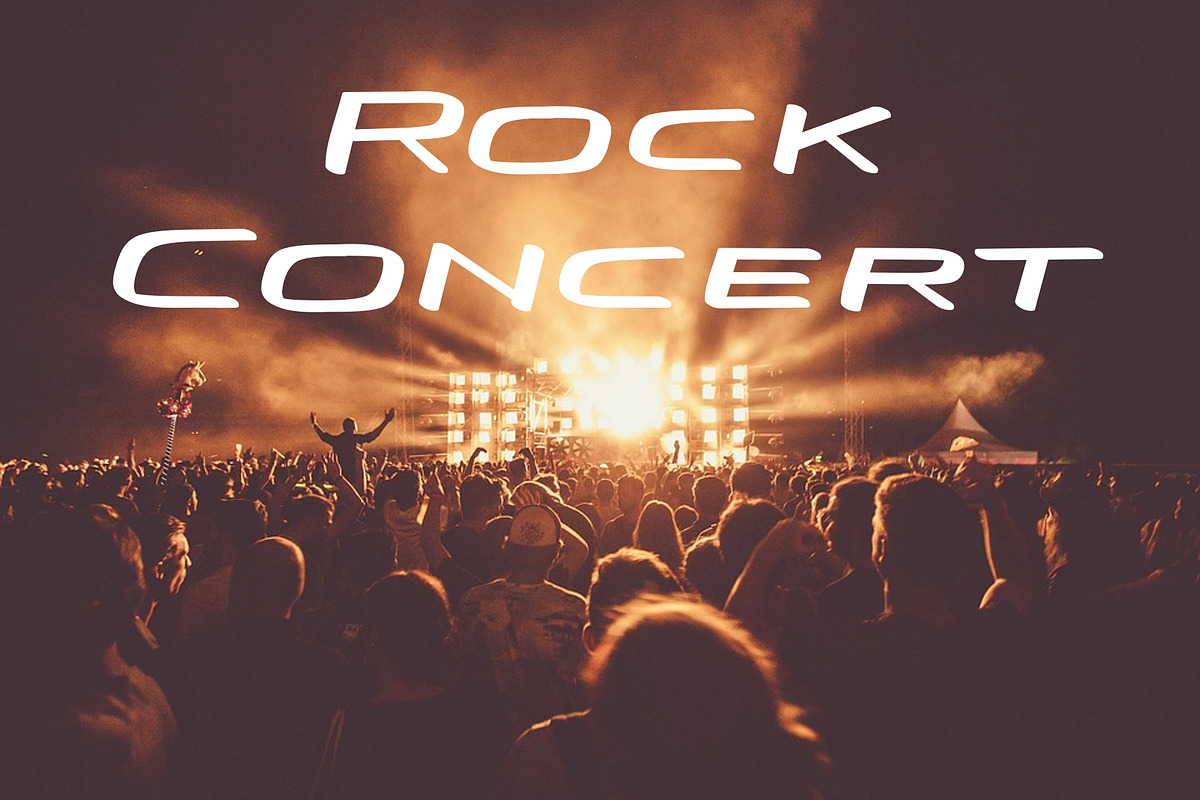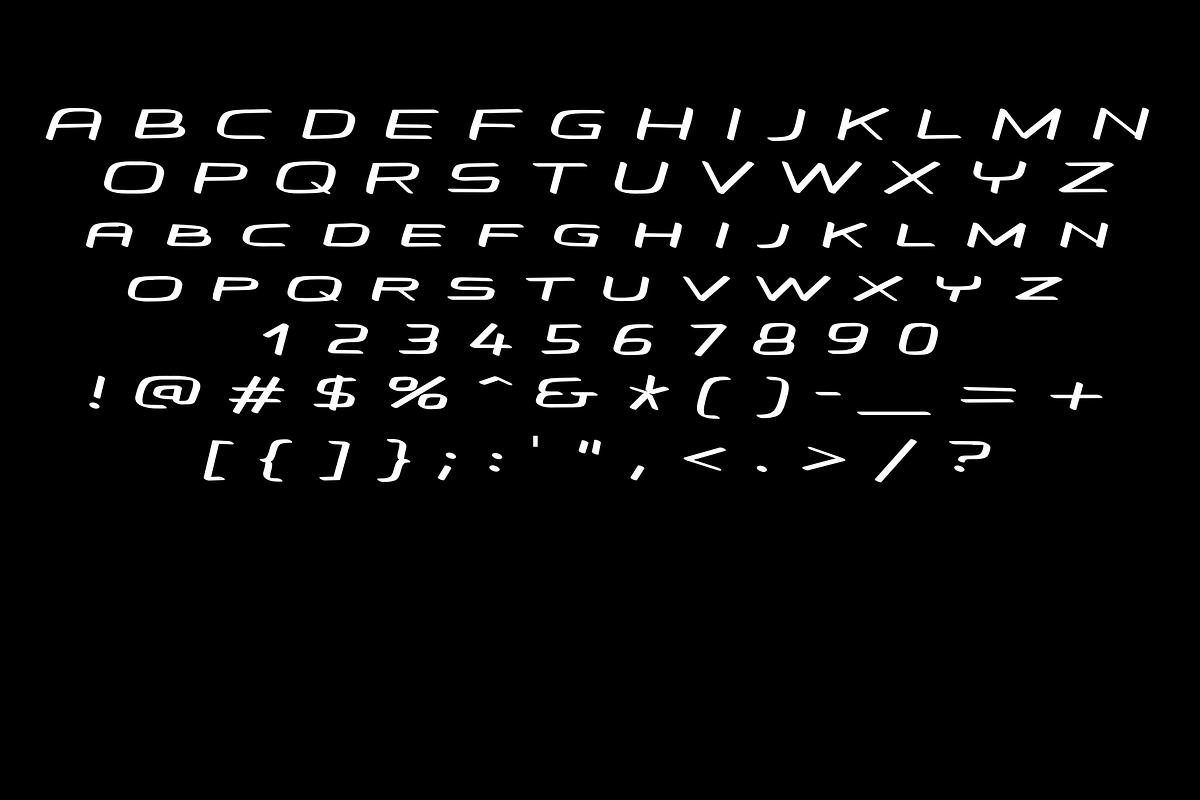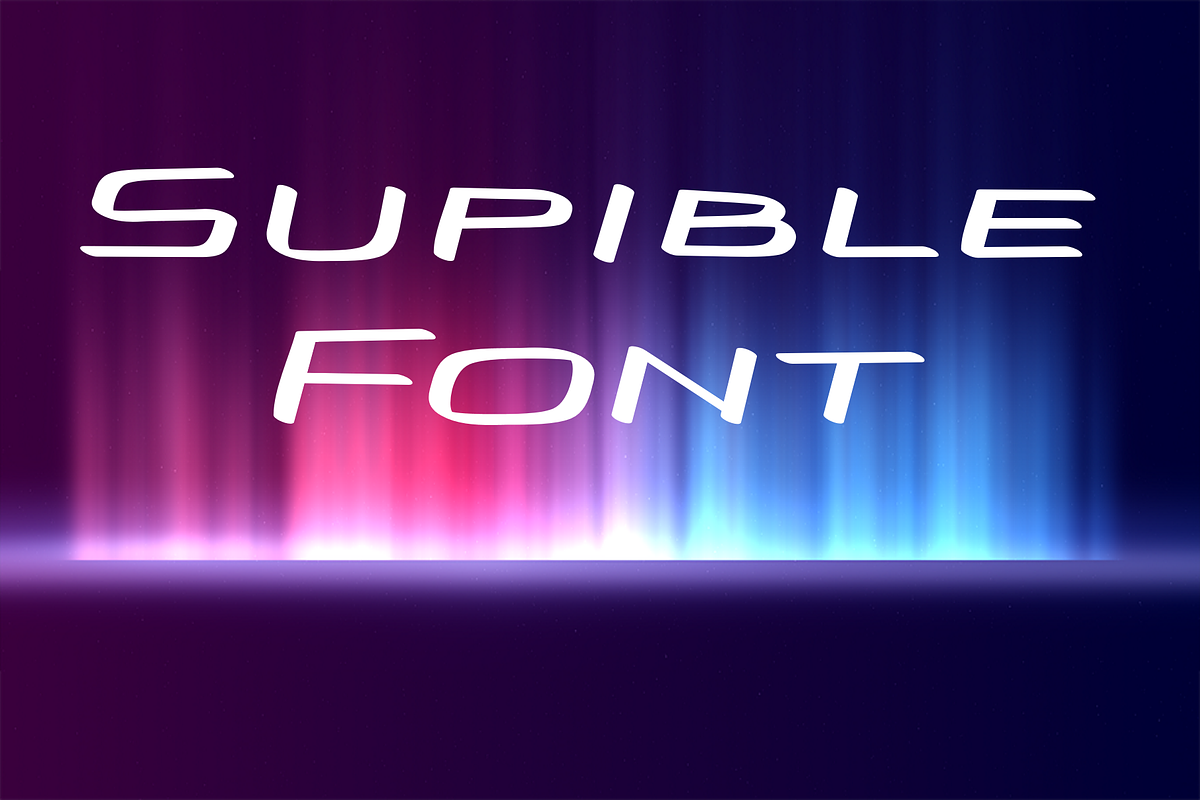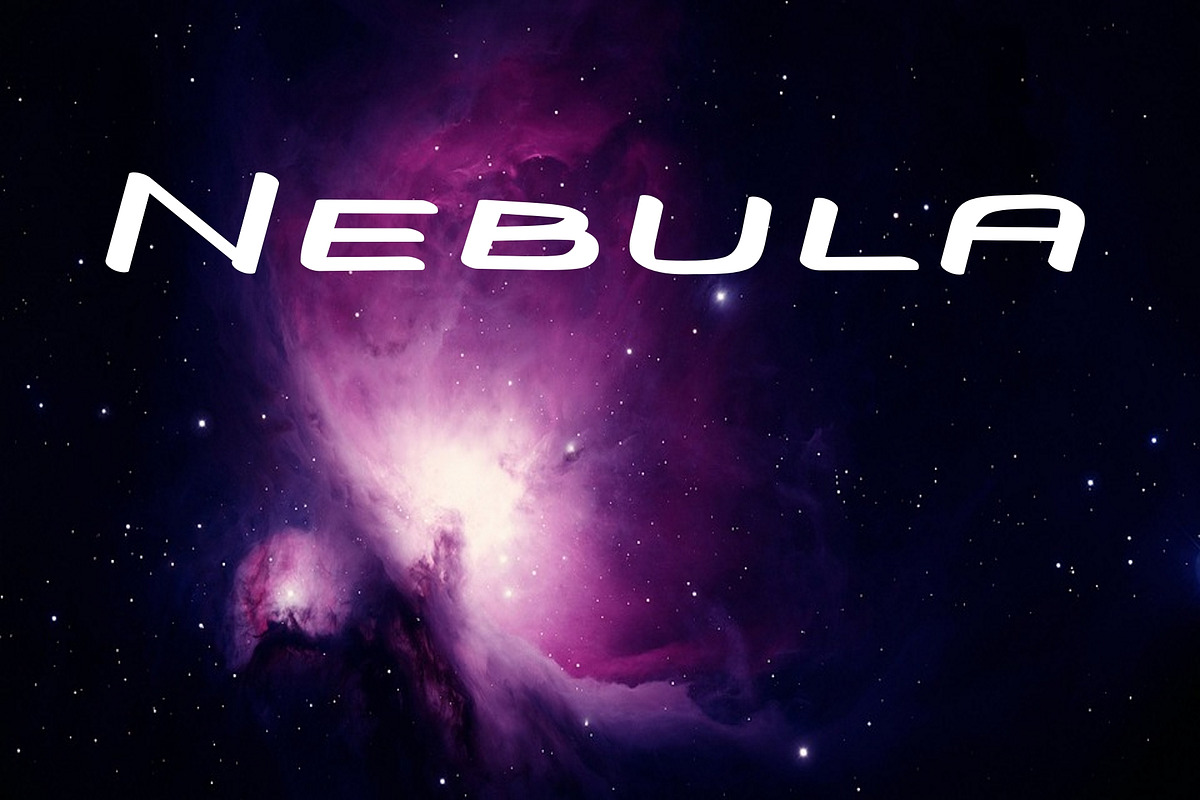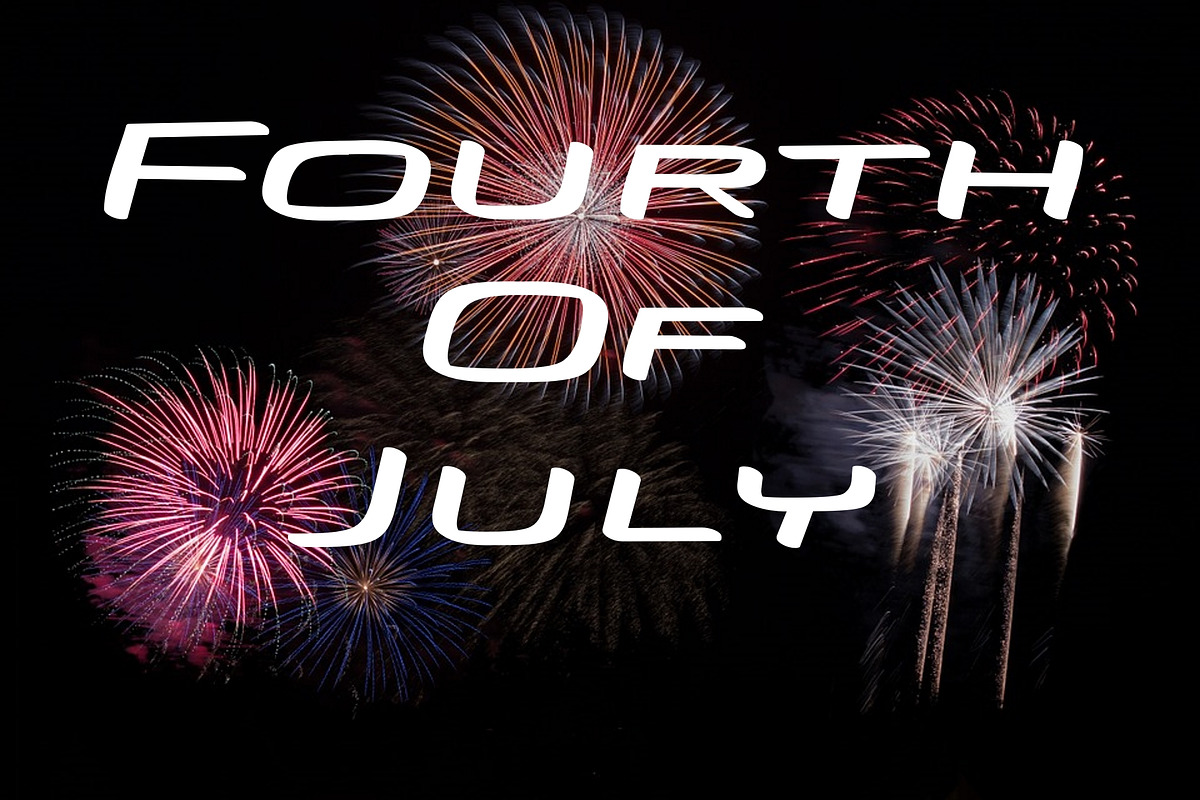
Supible Font
Supible Font by ultimatefontcreator is a font selected for branding, posters, packaging, typography.
Why Supible Font is worth a look
Supible Font by Ultimate Font Store fits naturally into Branding, posters, packaging, typography.